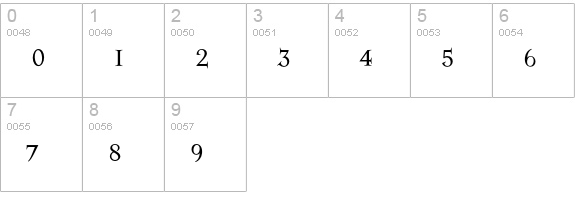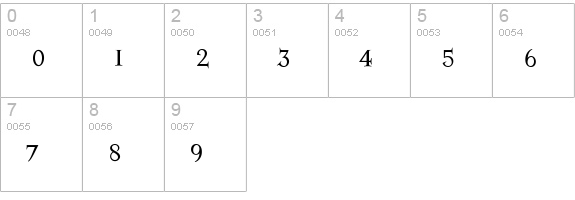
MansonSuper Font Details
Introducing MansonSuper, a captivating and versatile font that is bound to elevate your designs to new heights. With its bold and pronounced letterforms, MansonSuper exudes a sense of confidence and modernity. This font is perfect for various design projects, including headlines, logos, posters, and branding materials. What sets MansonSuper apart is not only its striking appearance but also the fact that it is completely free. Yes, you read that right! This incredible font is freely available to download at FontsMarket.com, making it accessible to designers and enthusiasts alike. Designed with meticulous attention to detail, MansonSuper offers a harmonious balance between elegance and strength. Its clean lines and well-defined curves effortlessly catch the eye, making a lasting impression. Whether you're looking to create impactful typographic compositions or add a touch of sophistication to your designs, MansonSuper is the ideal choice. The versatility of MansonSuper knows no bounds, as it seamlessly adapts to various design styles and contexts. Its legibility remains intact even at small sizes, ensuring readability across different mediums. From print to digital, MansonSuper remains a reliable and visually striking font choice. With its wide range of weights and styles, MansonSuper provides endless possibilities for creative experimentation. Whether you prefer a delicate thin weight or a bold and powerful appearance, this font has got you covered. Its versatility allows for seamless integration across various design projects, enabling you to explore and push the boundaries of your creativity. MansonSuper is not just a font; it is a statement. It embodies the spirit of innovation, freedom, and expression. And the best part? It's free! Don't miss out on this incredible opportunity to enhance your designs with MansonSuper. Visit FontsMarket.com today and download this exceptional font for free, and unlock a world of design possibilities.